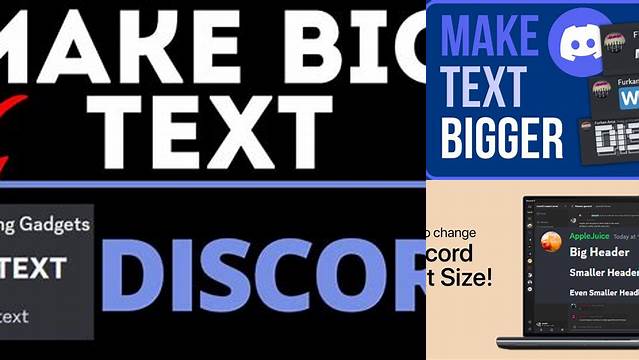
Big Fonts On Discord: Ultimate Guide
Hey guys! Ever wondered how to make your Discord messages really pop? Maybe you want to emphasize a crucial point, or perhaps you just want to annoy your friends (kidding!). Whatever the reason, getting big fonts on Discord is a neat trick to have up your sleeve. This guide will walk you through all the methods, from simple text formatting to more advanced techniques using bots. We'll cover everything you need to know to make your text stand out and grab attention in the chaotic world of Discord. Let's dive in and explore how to wield the power of font size and style!
Simple Text Formatting for Bigger Fonts
Alright, let's start with the basics. Discord, like many other chat platforms, supports simple text formatting using a few handy symbols. While you can't directly change the font size in the traditional sense (like selecting a specific point size), you can use these methods to make your text appear larger and more prominent. These formatting tricks are super easy to learn and apply, making them a quick win for anyone looking to spice up their messages. Forget boring, bland text; it's time to level up your Discord game!
Bold Text
Want your text to scream, "Pay attention!"? Use bold text. It's the simplest and most effective way to make your message stand out. All you have to do is enclose your text within two asterisks (**) or two underscores (__).
For example:
**This text is bold!**
__This text is also bold!__
This will render as This text is bold! and This text is also bold!, making your message appear larger and more attention-grabbing. This is perfect for highlighting important announcements, key details, or just making a dramatic statement. Using bold is an excellent starting point to make your text bigger.
Italic Text
Need to add a touch of emphasis or convey a certain tone? Italic text is your go-to. Enclose your text within a single asterisk (*) or a single underscore (_).
For example:
*This text is italic!*
_This text is also italic!_
This will render as This text is italic! and This text is also italic!, lending a subtle yet effective visual cue to your messages. Italic is great for conveying thoughts, feelings, or anything that might be read with a softer tone. While not as immediately noticeable as bold, italics can still make your text stand out.
Bold and Italic Combined
Want the best of both worlds? Combine bold and italic formatting! Enclose your text within three asterisks (***) or three underscores (___).
For example:
***This text is bold and italic!***
___This text is also bold and italic!___
This will render as This text is bold and italic! and This text is also bold and italic!. It's the ultimate way to emphasize your message, combining the visual weight of bold with the subtle flair of italics. This is great for when you really want to make sure people notice your message!
Underlined Text
Discord also supports underlining, but it works slightly differently. Use two underscores at the start and end of your text.
For example:
__This text is underlined!__
This will render as This text is underlined!. However, be mindful that underlining can sometimes be confused with hyperlinks. Therefore, use it sparingly to avoid any potential confusion.
Strikethrough Text
Want to show that something has been edited or is no longer relevant? Use strikethrough! Simply enclose your text within two tildes (~~).
For example:
~~This text is strikethrough!~~
This will render as This text is strikethrough!. Perfect for indicating edits or crossing out outdated information.
Using Code Blocks for Bigger Fonts
Now, let's explore a slightly more advanced trick: code blocks. While not directly changing font size, using code blocks allows you to create a visually different presentation that can make your text appear larger, especially on smaller screens. This is a great way to make your text stand out without using too much emphasis. Get ready to make your messages really stand out!
Inline Code
For short snippets of text, use inline code. Enclose your text within a single backtick (`) on either side.
For example:
This is `inline code`!
This will render as This is inline code!, which often appears in a monospaced font, setting it apart from the regular text. It's perfect for highlighting specific words or commands.
Multi-line Code Blocks
For larger blocks of text, use multi-line code blocks. Enclose your text within three backticks (```) on separate lines.
For example:
This is a multi-line code block! It appears in a different font and can be quite large.
This will render your text in a block, usually with a monospaced font and a different background color. This makes the text appear larger, especially if the text is on multiple lines. This is a fantastic way to highlight longer messages or important information. The best part is that you can change the appearance of code blocks with themes.
Conclusion: Level Up Your Discord Game
So there you have it! You've learned a bunch of cool tricks to get bigger fonts on Discord and make your messages stand out. From simple formatting to more advanced techniques using bots and custom fonts, you now have a variety of tools at your disposal. Remember to use these techniques strategically and with consideration for your audience. Have fun experimenting and making your mark on Discord! Now go forth and create awesome messages that grab attention!